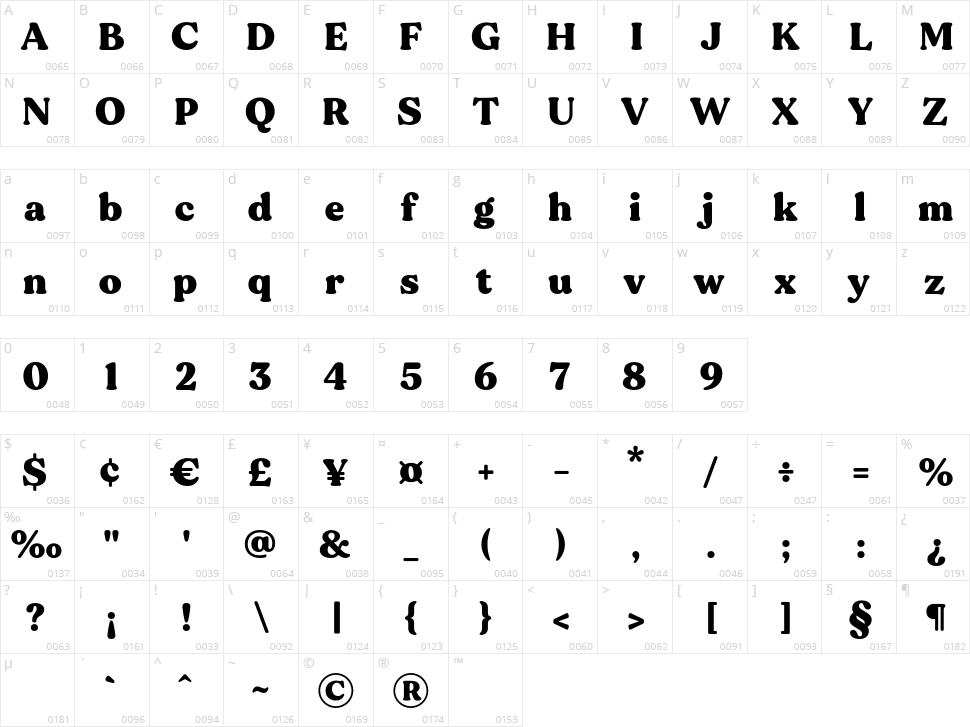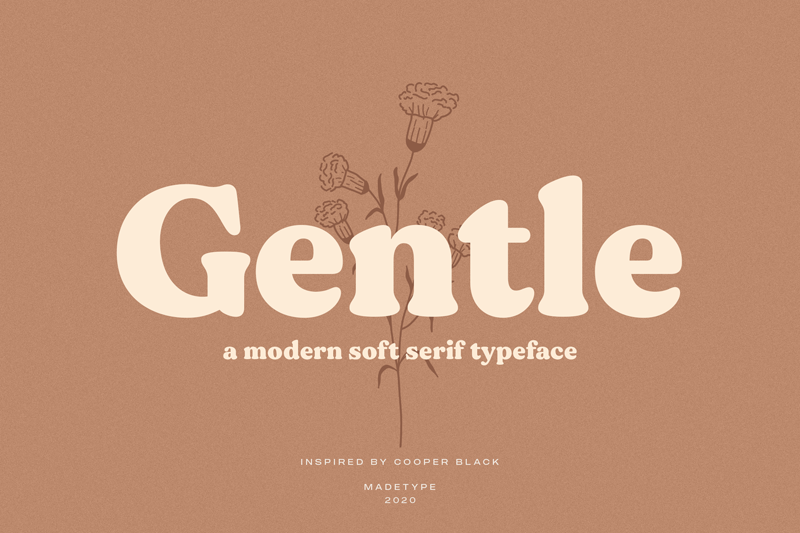
MADE Gentle
Note of the author MADE Gentle is a modern soft serif typeface.
MADE Gentle will perfect for many project: fashion, magazines, logo, branding, photography, invitations, wedding invitation, quotes, blog header, poster, advertisements, postcard, book, websites, etc.